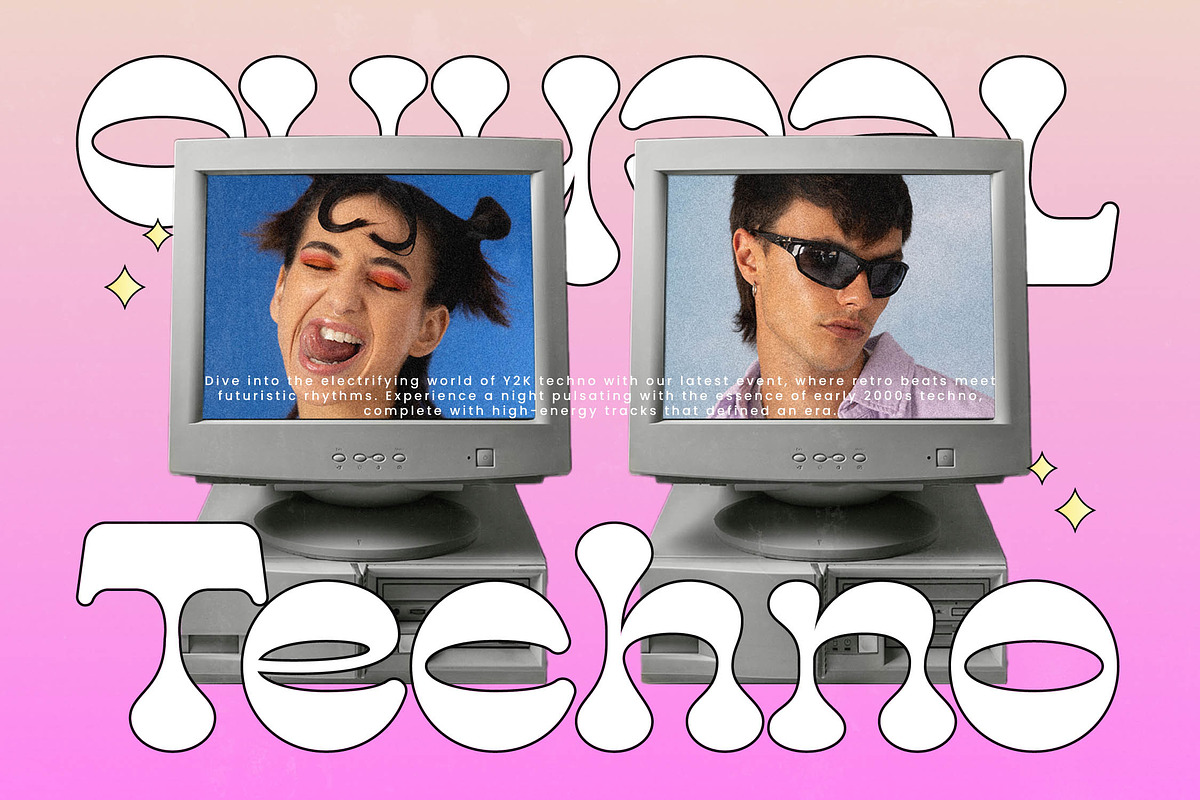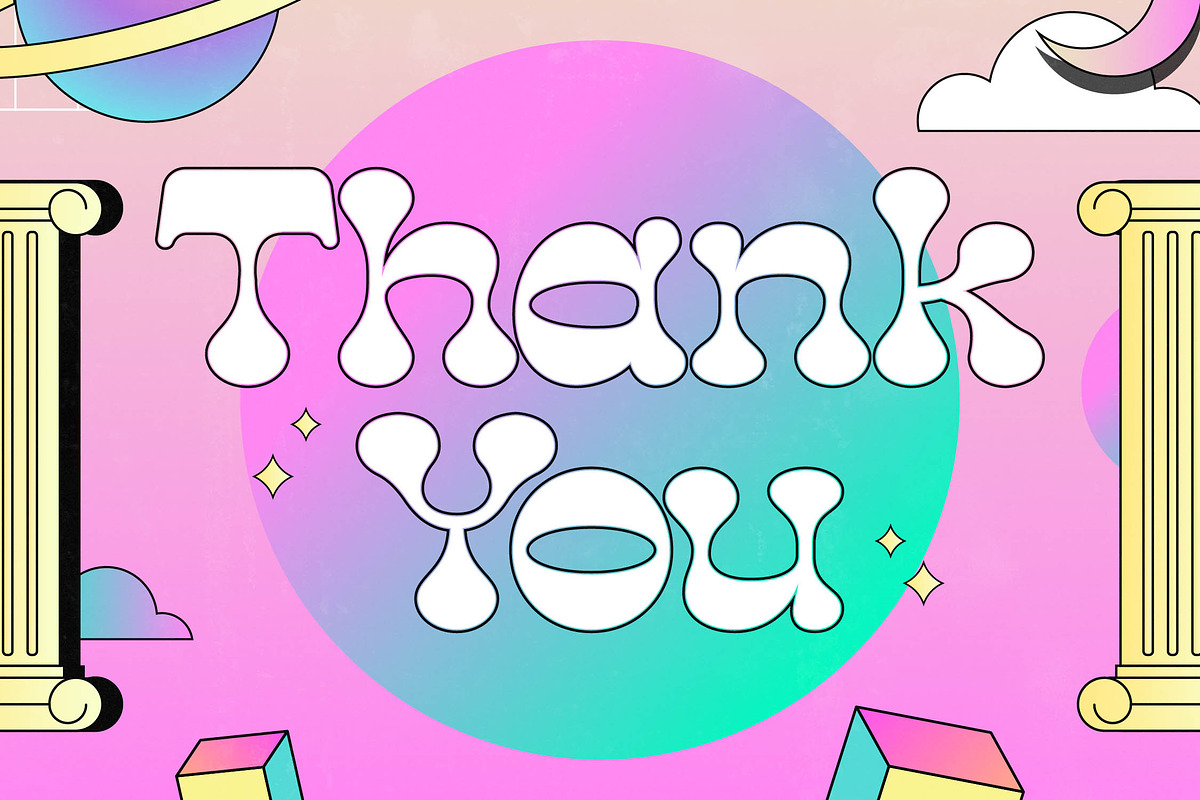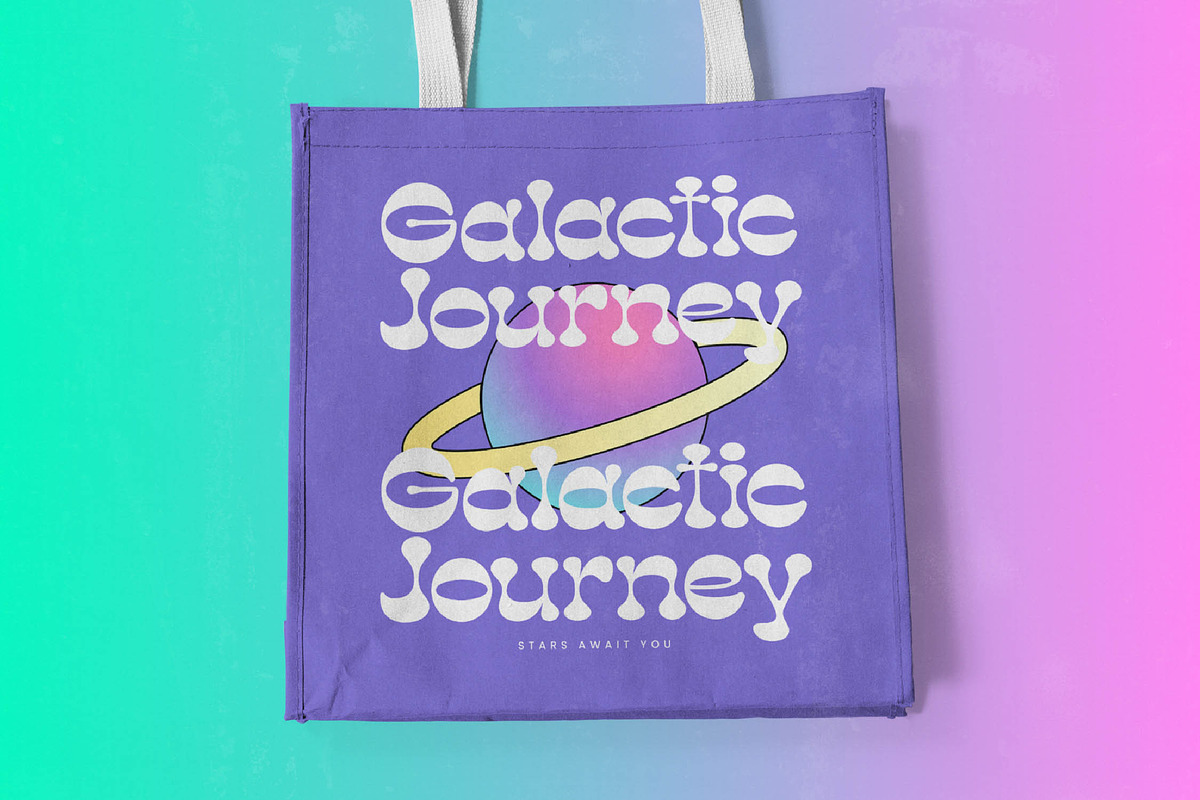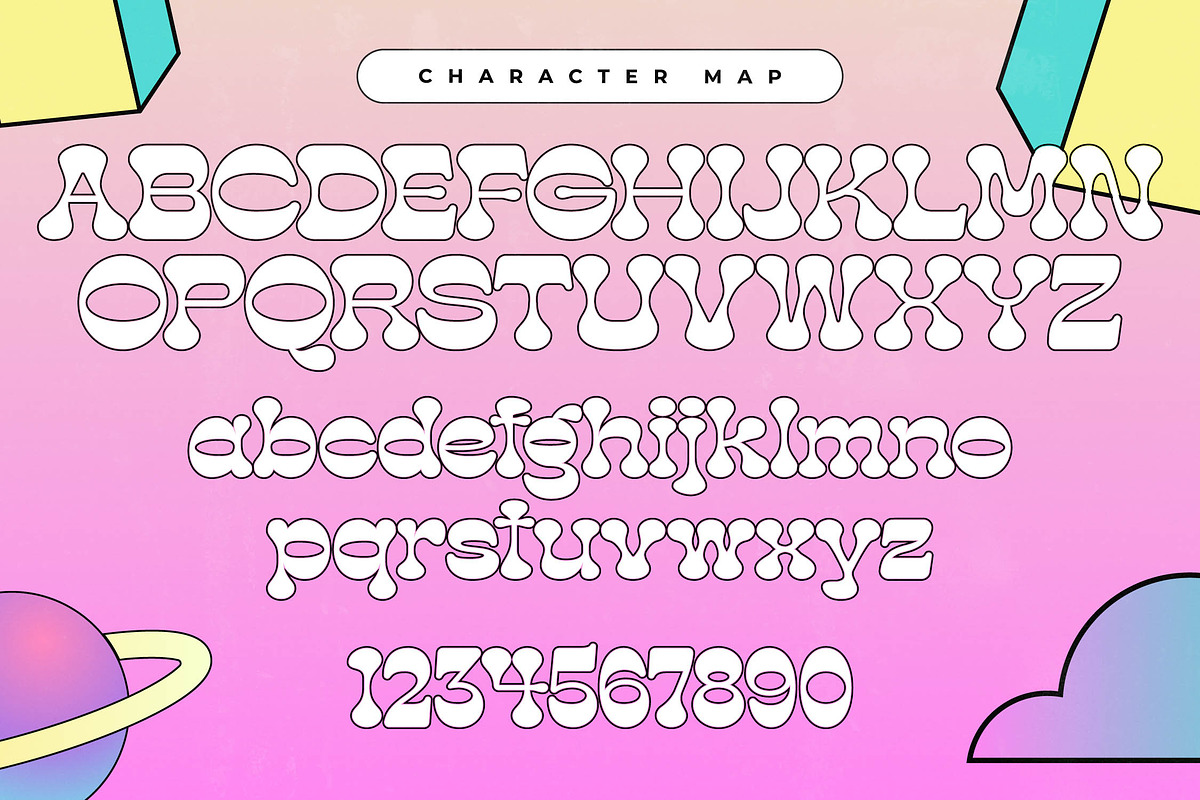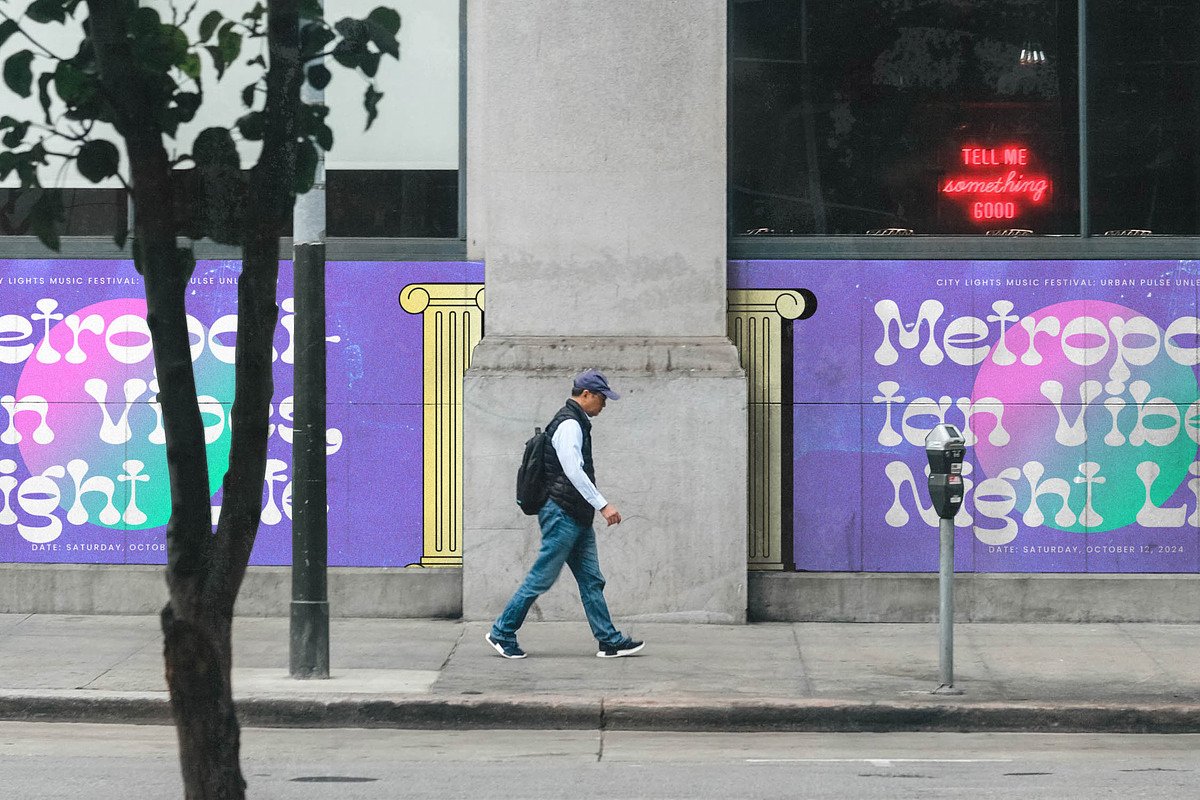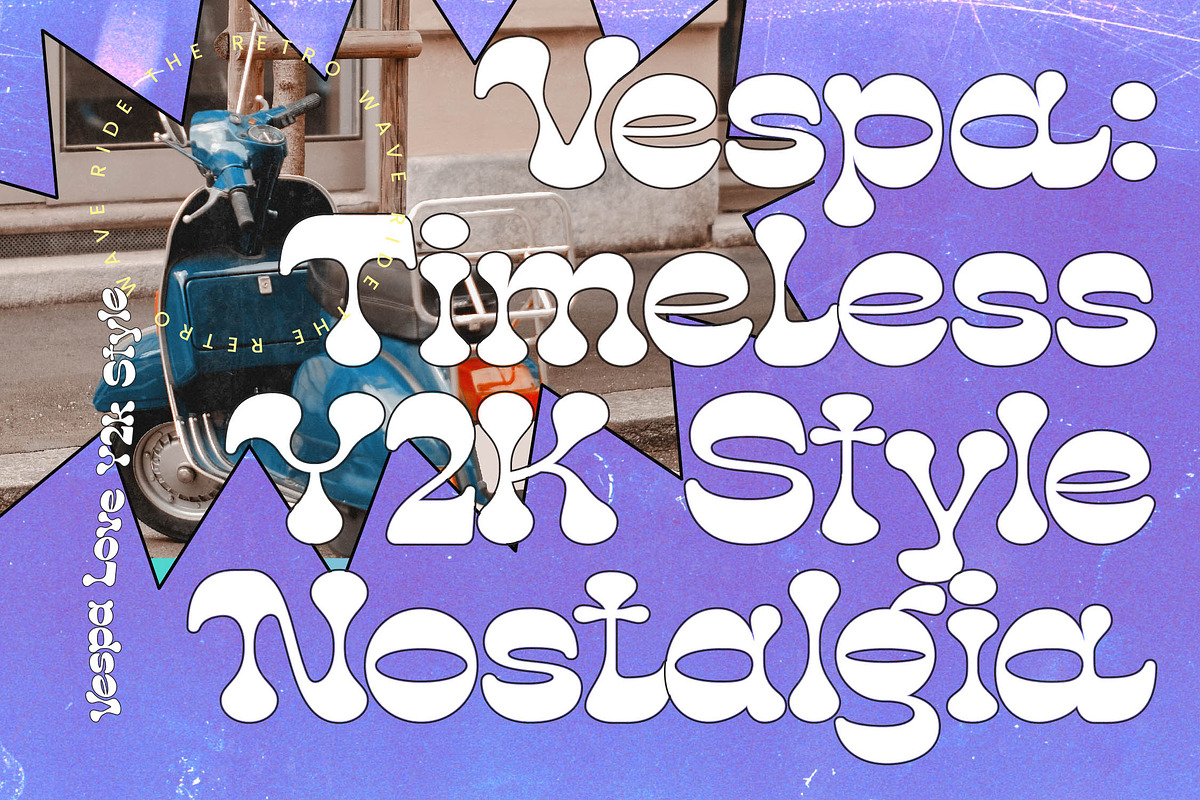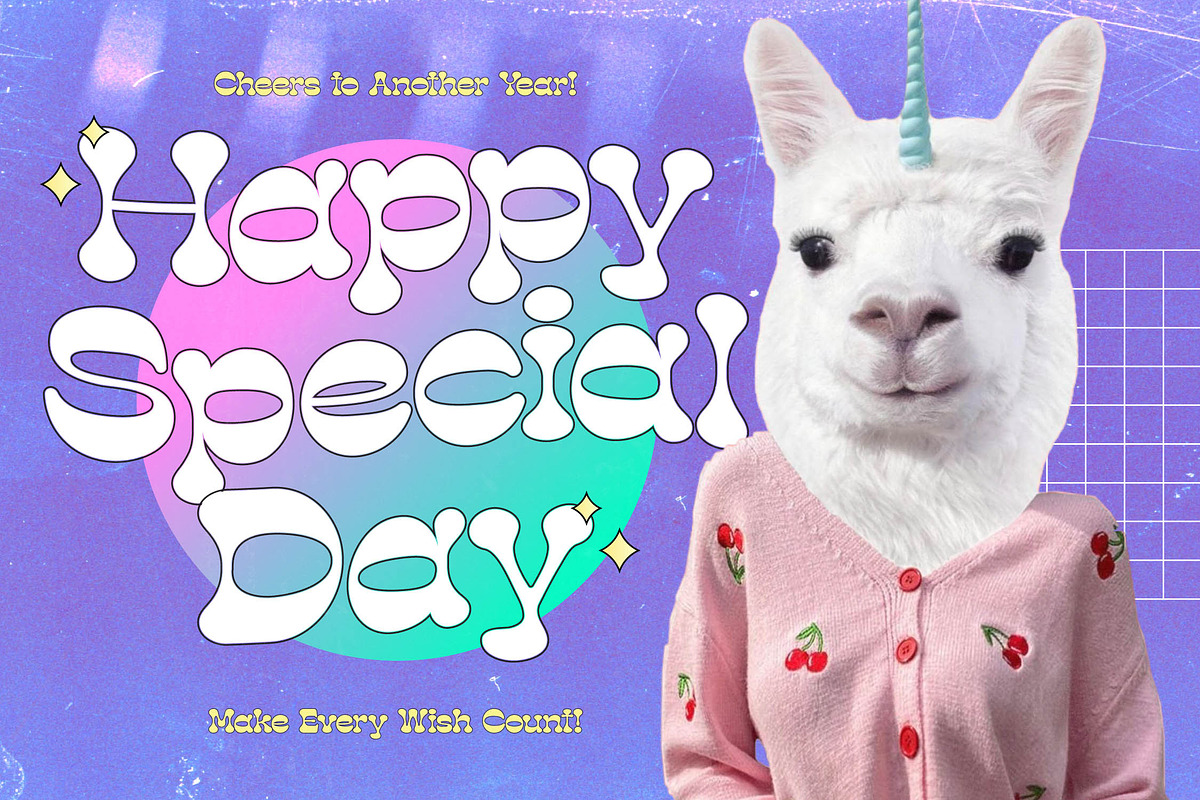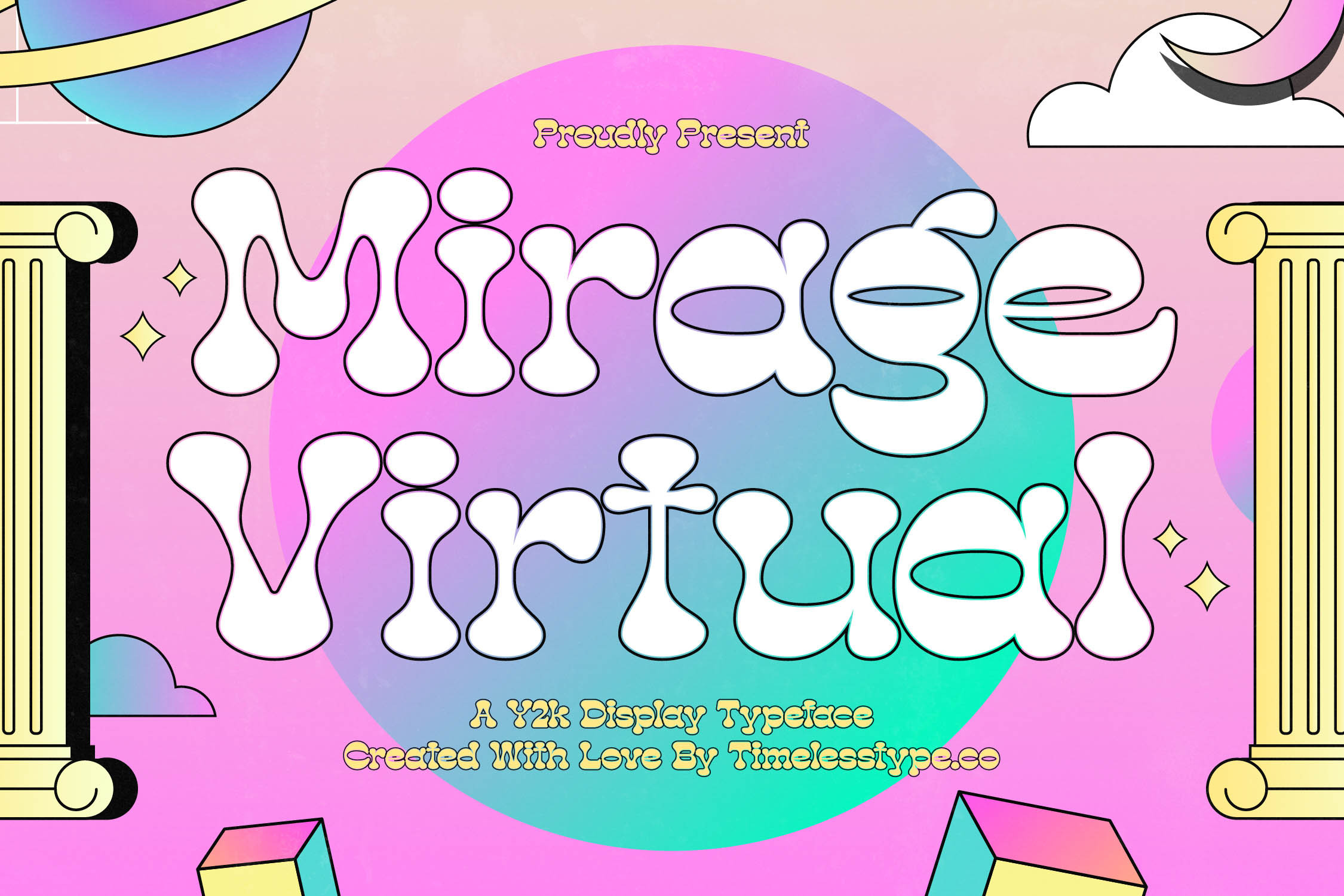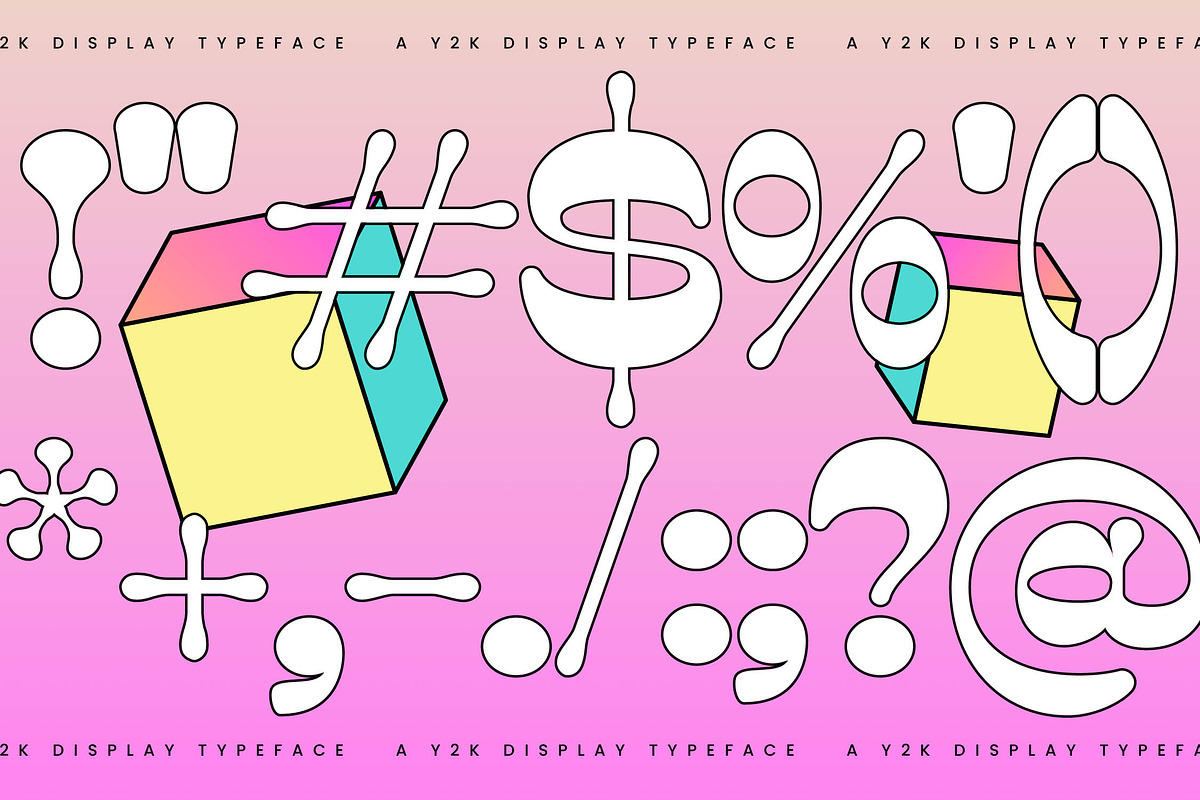
Mirage Virtual Retro Groovy Font
Step into a kaleidoscopic dreamscape where fluid motion meets digital precision with the stunning Mirage Virtual. This typeface captures the essence of a liquid reality, blending nostalgic grooves with a vibrant edge that demands instant attention.
Inspired by the swirling aesthetics of the 1970s psychedelic movement and the ethereal energy of retro-futurism, this font evokes a sense of surreal wonder. It feels like a transmission from a distant, stylish dimension where every curve tells a story of total creative liberation.
The personality of this font is built for a branding impact that transcends ordinary design, offering a unique twist on the modern serif display category. Despite its fluid nature, it maintains the sophistication of luxury typography and the elegance of a high-contrast serif, making it a versatile editorial font for bold creators.
Staying ahead of the modern serif trend, this typeface is an essential tool for those seeking character-driven typography that breaks away from flat minimalism. It perfectly aligns with the rise of editorial display fonts that prioritize personality and visual texture in a crowded digital landscape.
From high-impact logo design to cohesive branding projects, this font shines across various creative fields including editorial layouts and product packaging. Its ethereal yet bold presence makes it an unexpected yet chic choice for wedding invitations and high-end fashion lookbooks.
Designed for global accessibility, the font includes a robust set of international characters and full multilingual support. Designers will enjoy exploring creative layouts using the built-in ligatures, alternates, and decorative swashes that add a customized touch to every word.